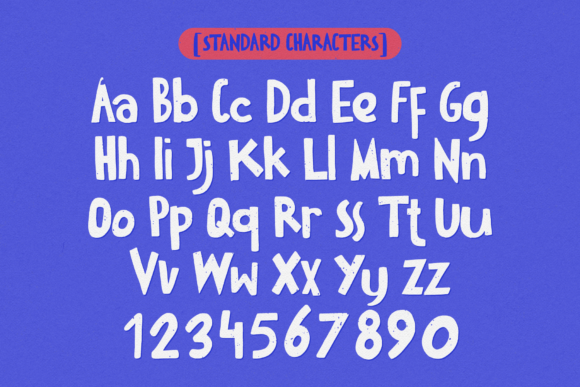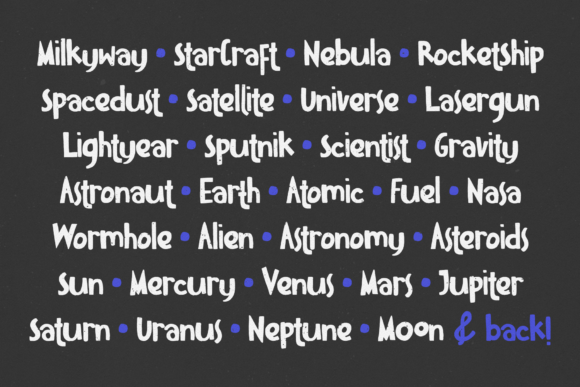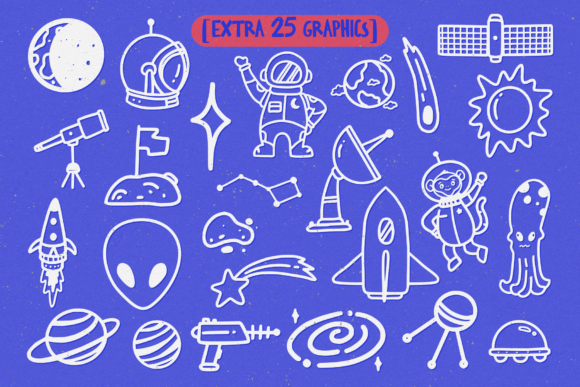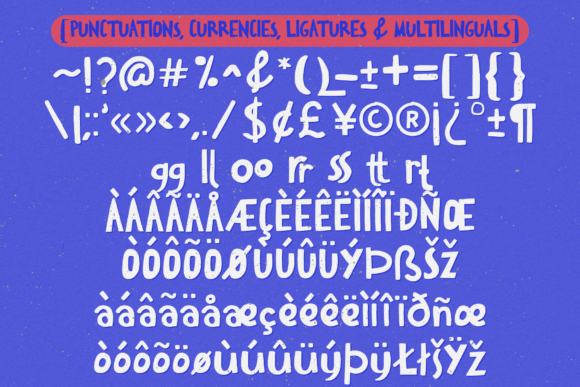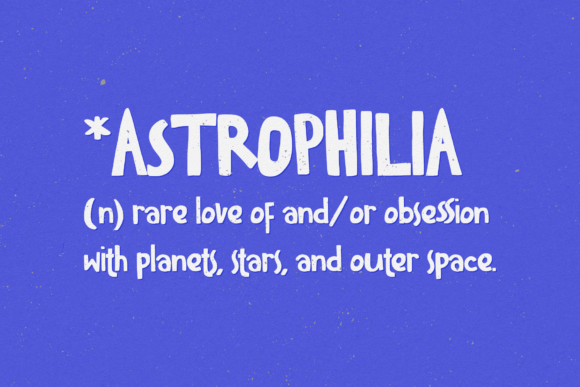
Introduction to MissBaker Font
Miss Baker is a playful sans serif font with extra outer space doodles.
Use this gorgeous and unique font to bring any DIY project to life .